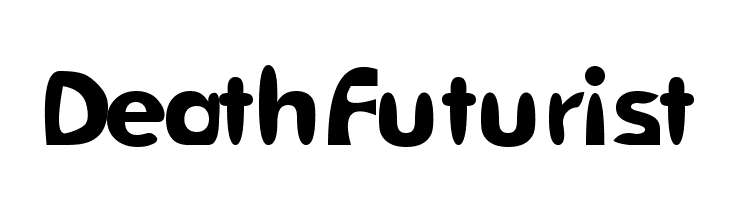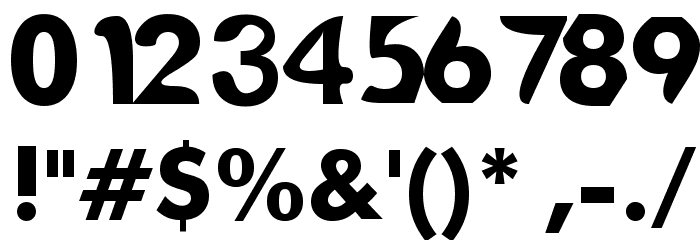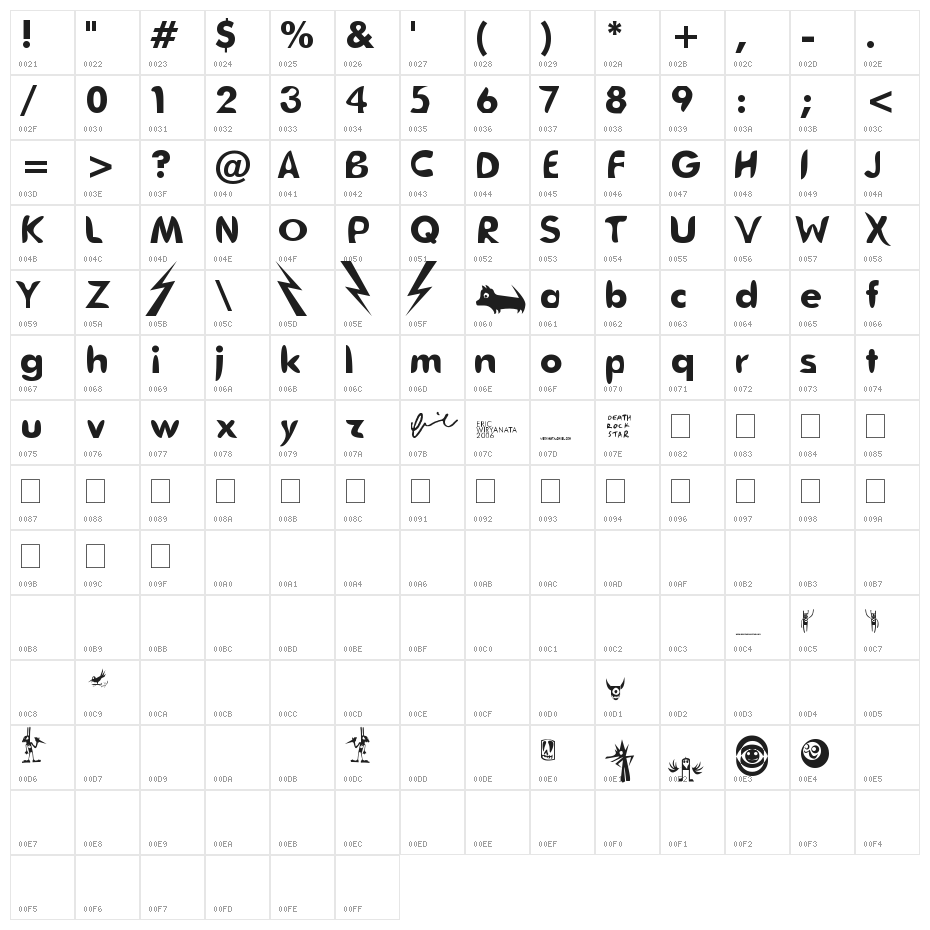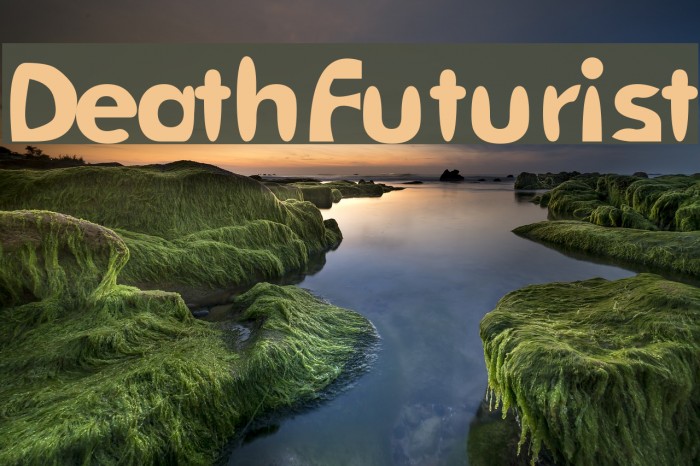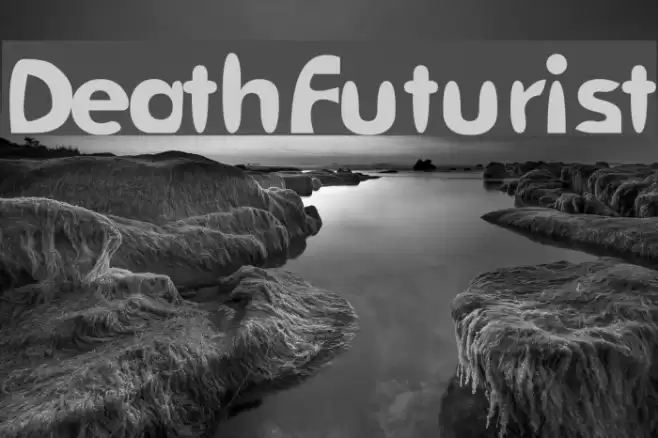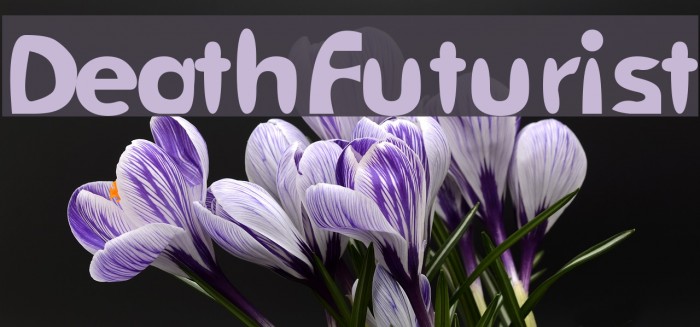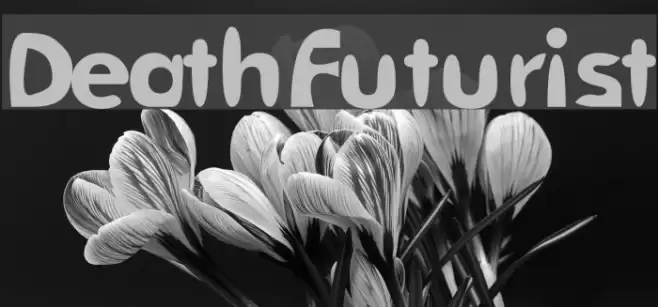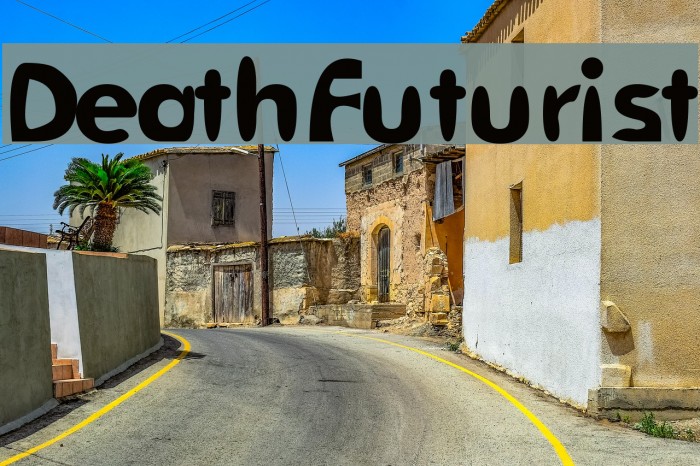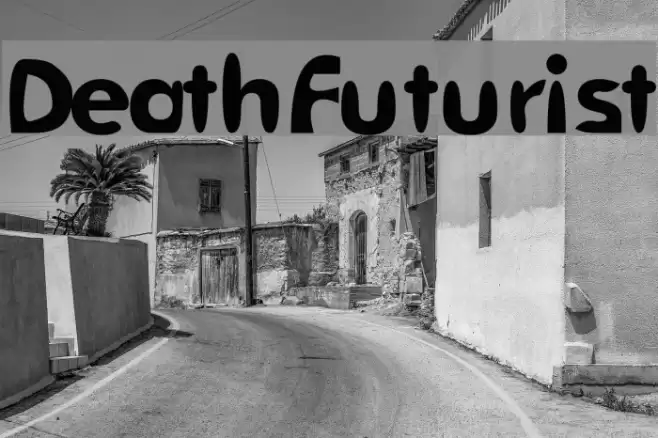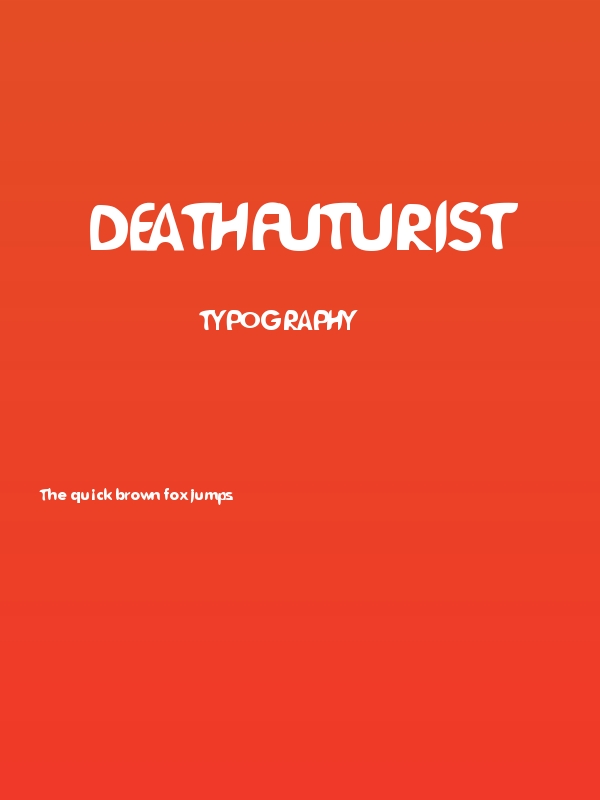
DeathFuturist Font
DeathFuturist Description
This font features a bold and playful design with a futuristic touch. The characters are rounded and have a smooth flow, creating a sense of movement and energy. The uppercase letters are slightly more angular, while the lowercase letters maintain a consistent rounded appearance. The numbers and special characters follow the same stylistic approach, ensuring uniformity across the font. The overall look is modern and dynamic, making it suitable for projects that require a bold and eye-catching typeface.
| Proposed Projects | Ideal for posters, logos, video game graphics, and any project needing a bold, modern typeface. |